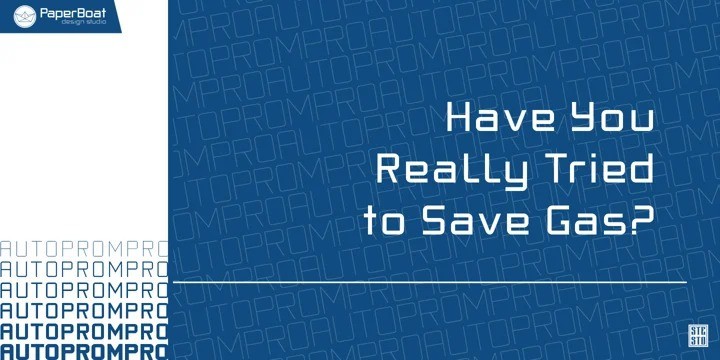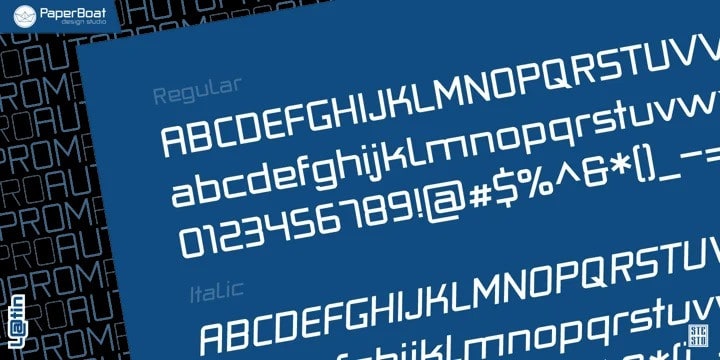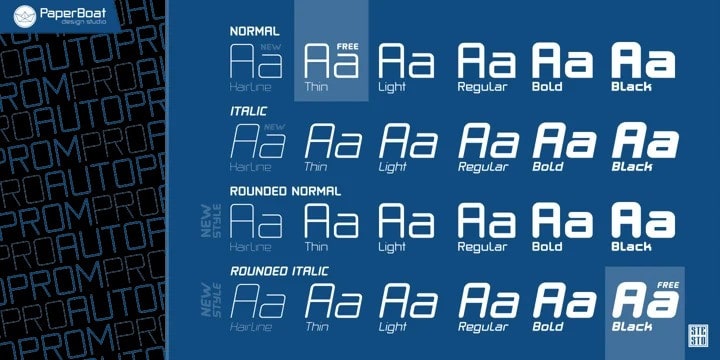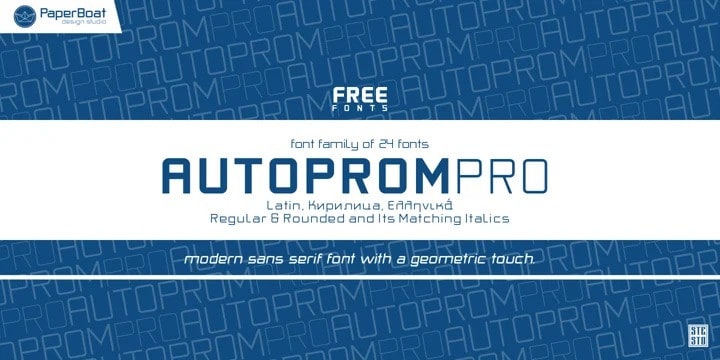
Autoprom Sans Serif Font
Autoprom Sans Serif Font is a clean 24 style semi-condensed sans-serif with 6 weights and its matching rounded and italics. The Thin weight and Black Rounded Italic is a free of charge, so you can use them to your projects. It’s designed and shared by Stefan Stoychev. Autoprom is a modern sans serif display font with a geometric touch,suitable for many project children book, quotes, logo , heading , title etc.